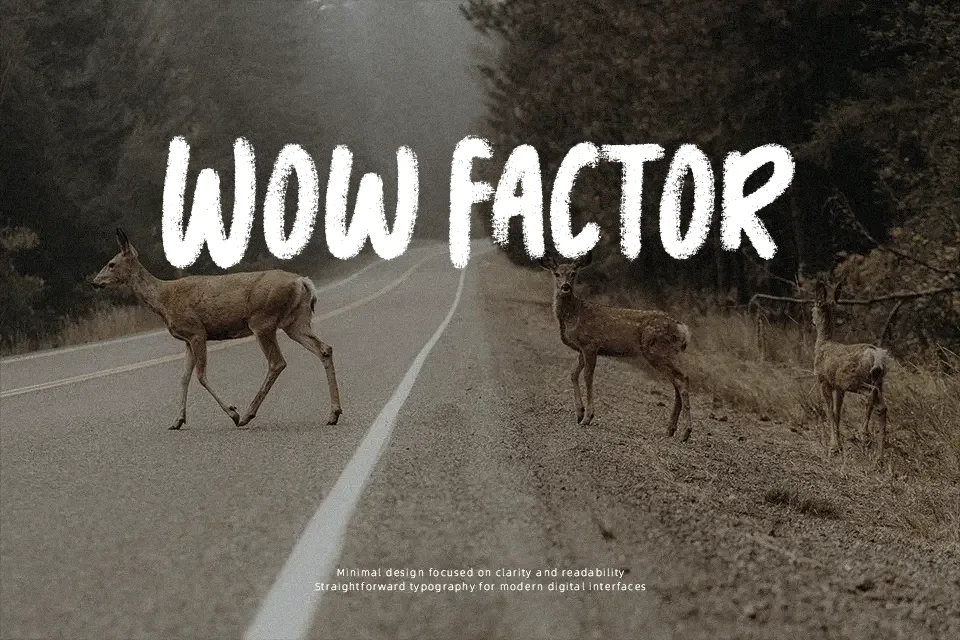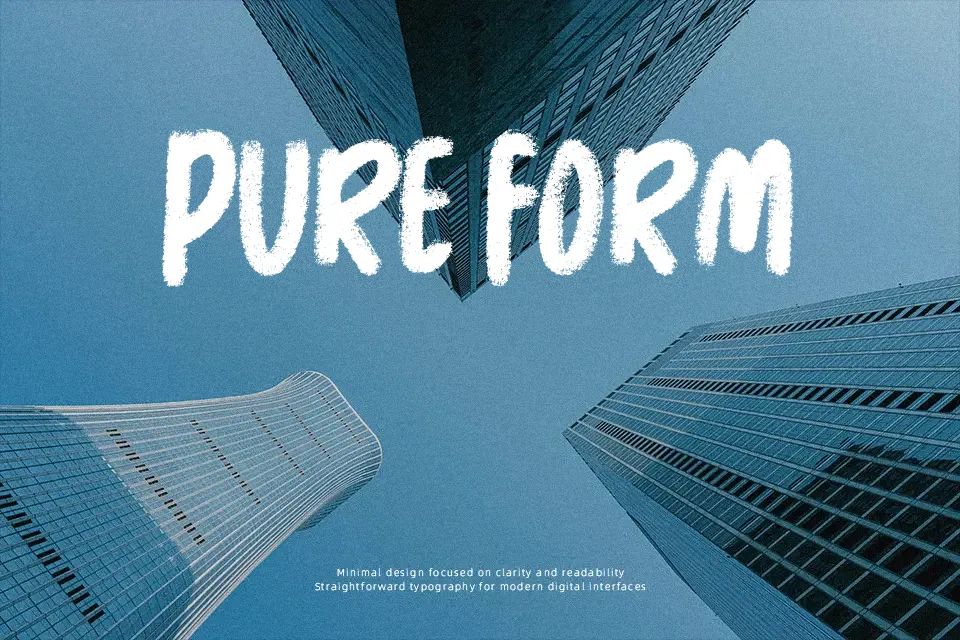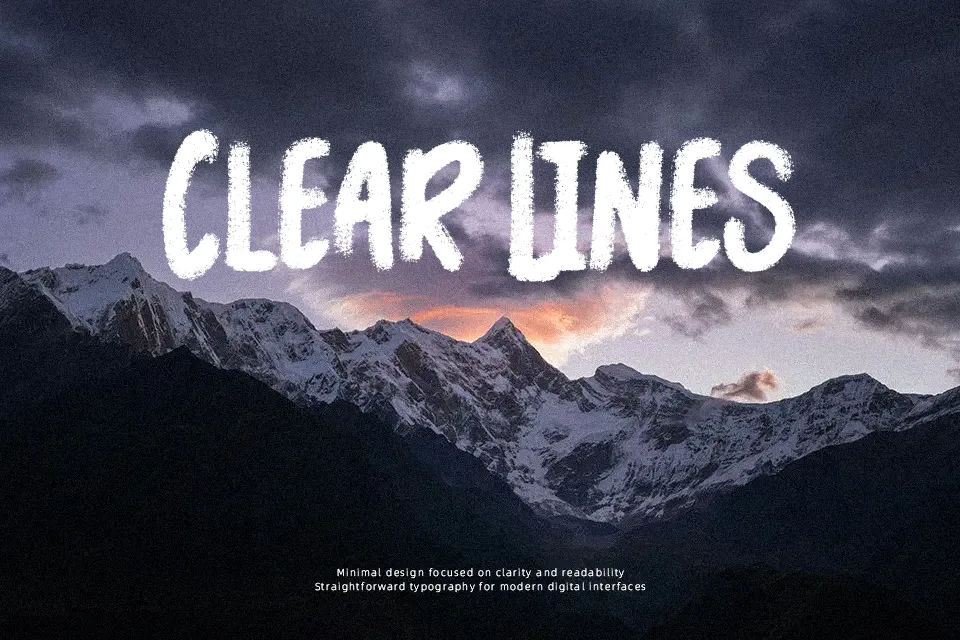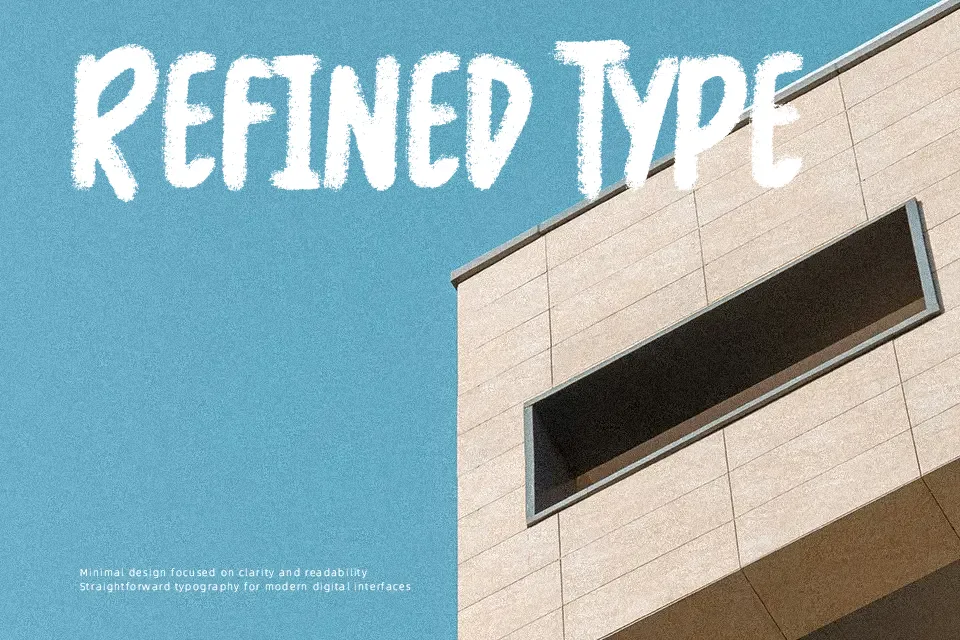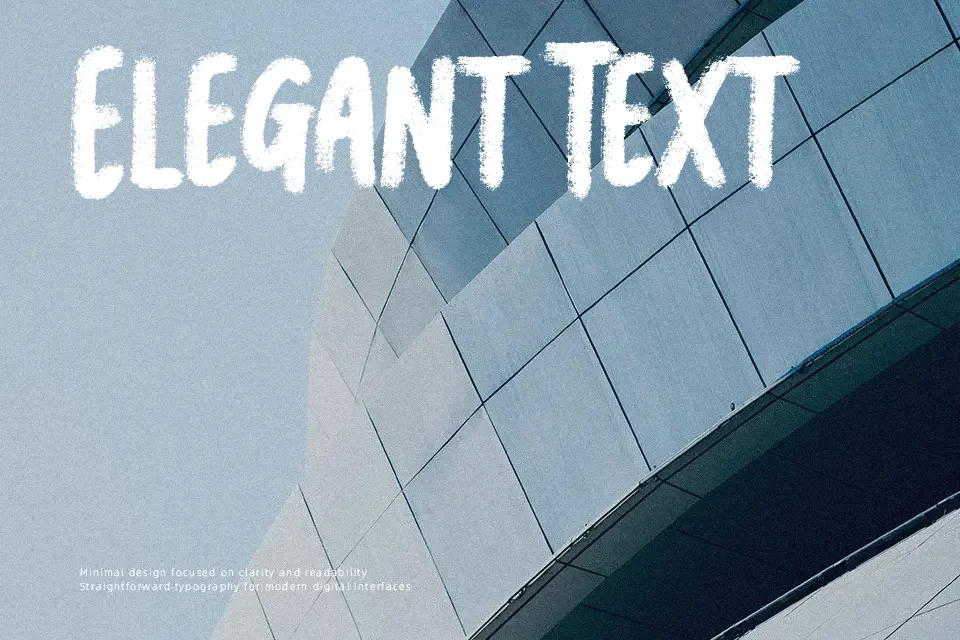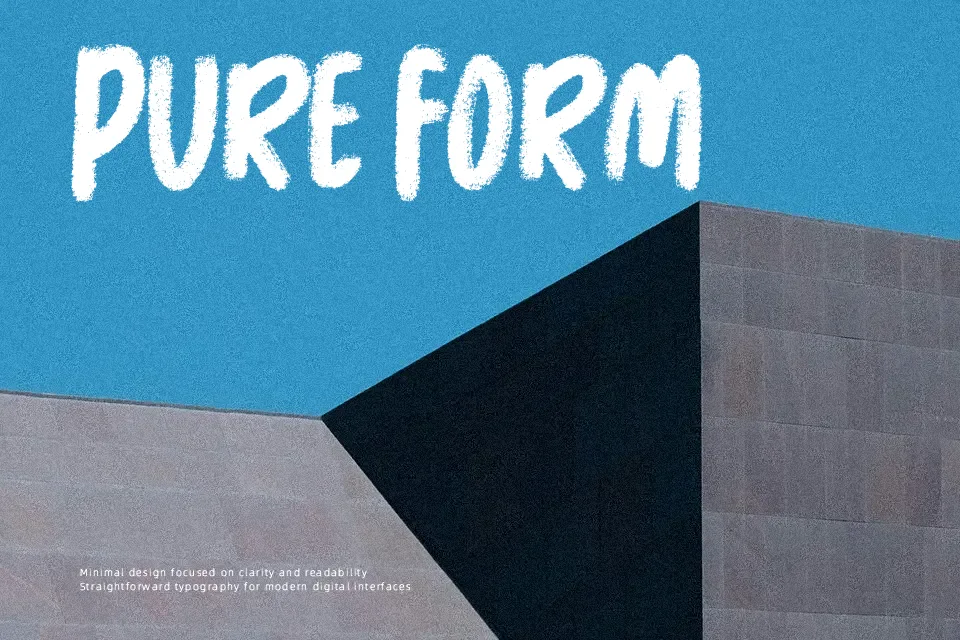
Thug Land Font
A bold festival poster or skate deck graphic immediately gains gritty presence when set in Thug Land Font. The typeface features broad, hand-drawn strokes marked by jagged contours and a chalky, eroded surface pattern across every capital glyph. Uniform proportions and compact spacing keep neighboring characters tightly unified, creating dense word blocks that stand out on textured backgrounds. The eroded contouring gives headline text an authentic stamped texture without requiring extra graphic filters. While readability remains punchy across short headlines and large merchandise prints, the heavy distress quickly degrades character recognition in small captions or extended body copy.
Best For: streetwear apparel graphics, music festival posters, beverage packaging labels
Not Ideal For: extended body paragraphs, legal contracts, small user interface captions
Perfect for advertising, headline, and logo, with a bold and decorative style.